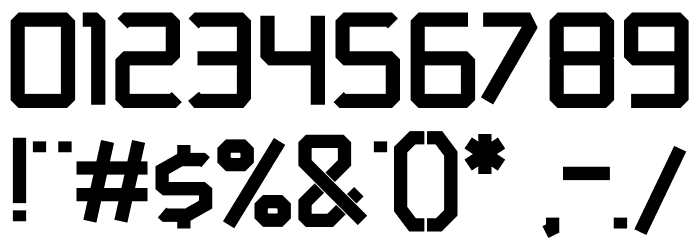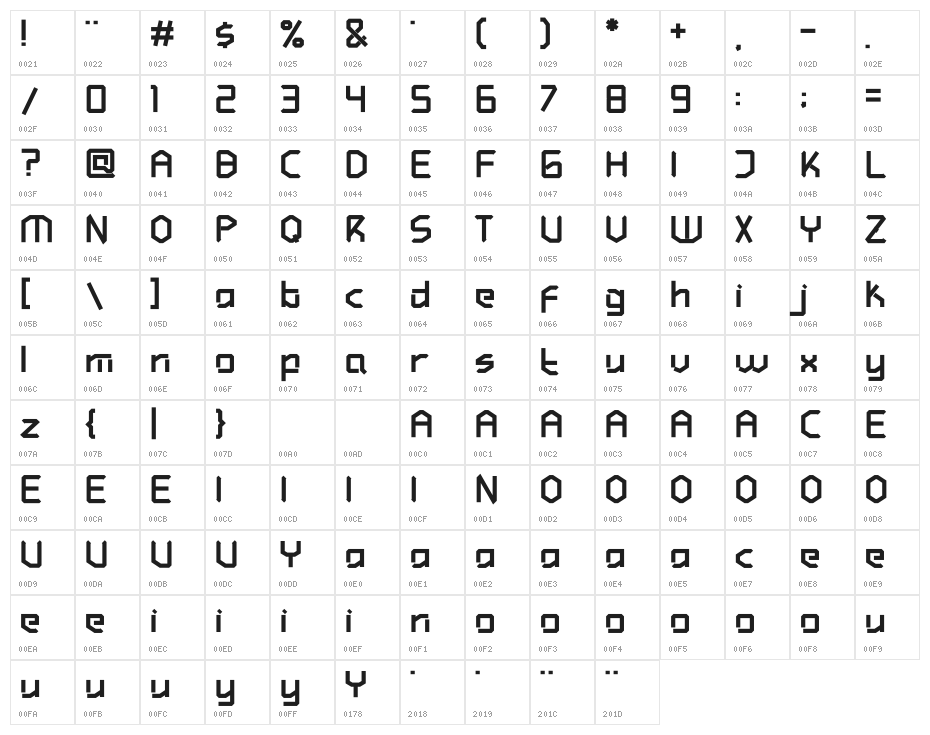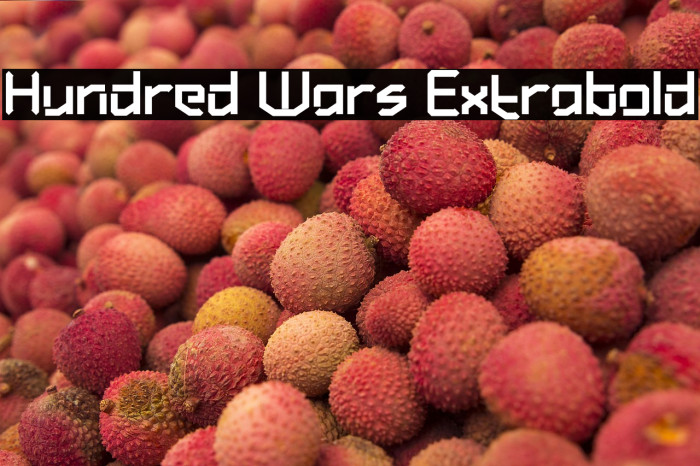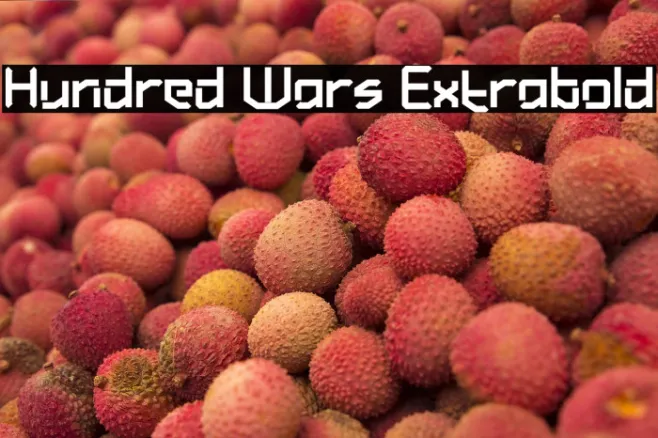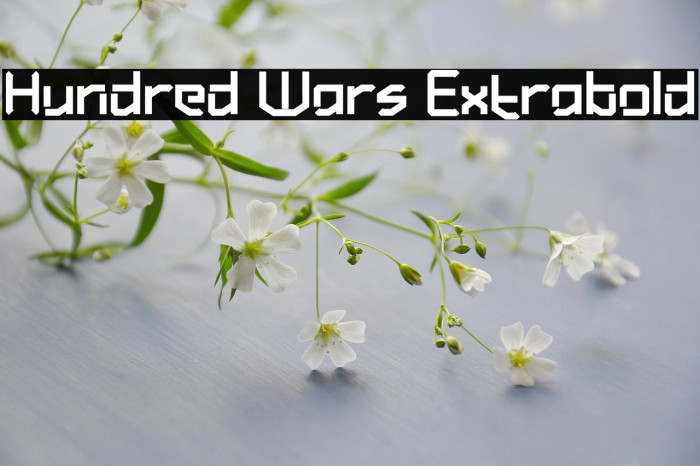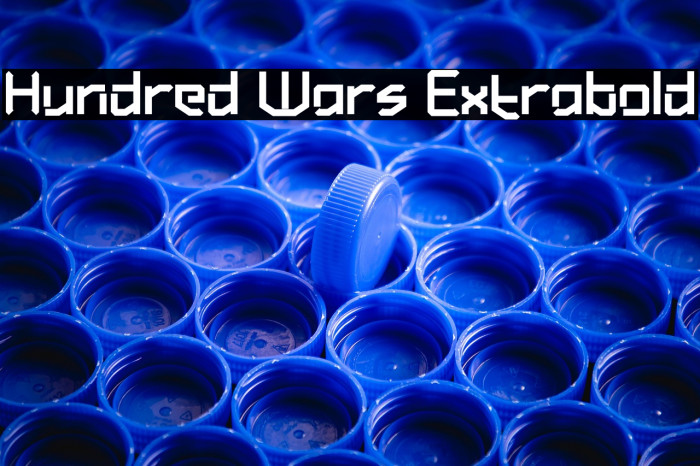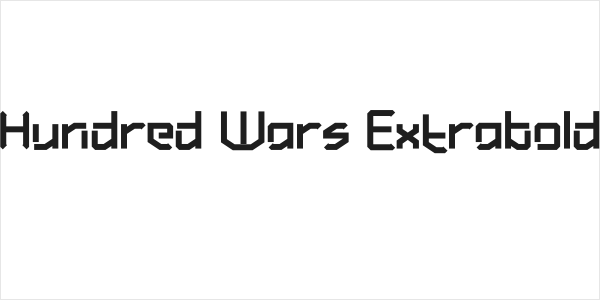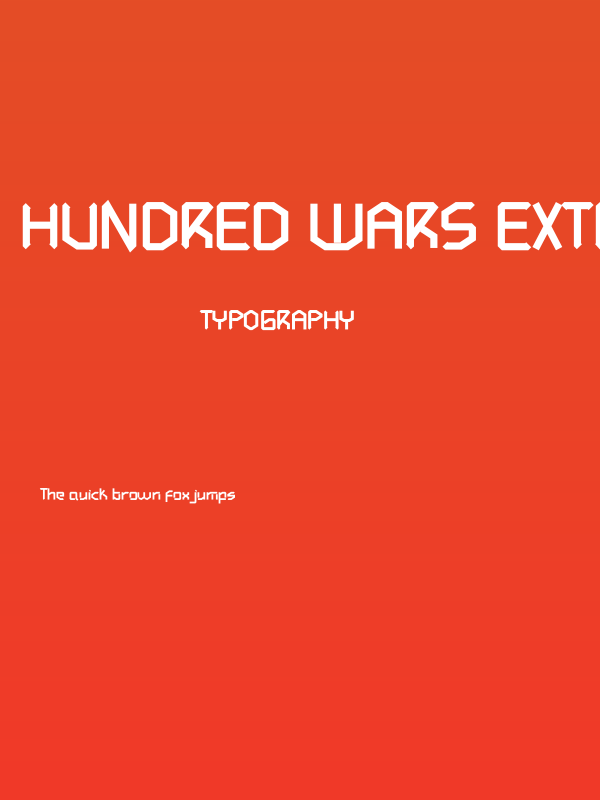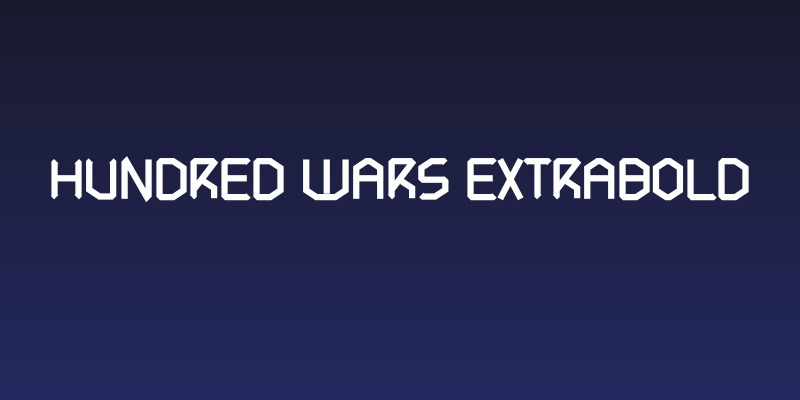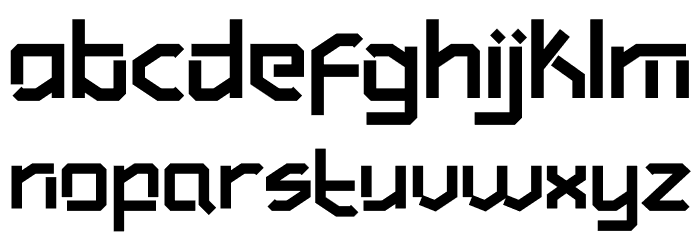
Hundred Wars Extrabold Font
Hundred Wars Extrabold Description
This font features a bold, geometric design with sharp angles and a futuristic aesthetic. The characters are constructed with straight lines and angular corners, giving it a distinct, edgy appearance. The uppercase and lowercase letters maintain a consistent height, contributing to a uniform look across the typeface. The numerals and special characters follow the same design principles, ensuring cohesion throughout. Its strong, impactful presence makes it suitable for attention-grabbing designs.